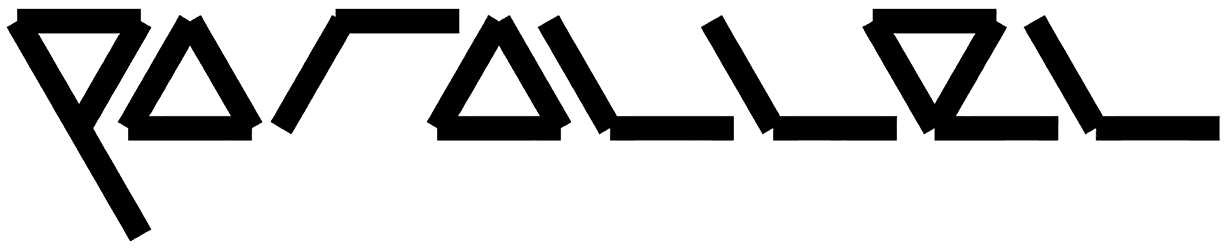
Parallel Font
A techno font such as Parallel would be the most rational option in hard circumstances and lets you design glamorous posters, brochures, magazines, headlines, or wood engravings. This alien font comes in different styles and weights to give you a hand to hardly impress the audience by conveying a sense of dynamic, futuristic, approachability, or drama to their minds.